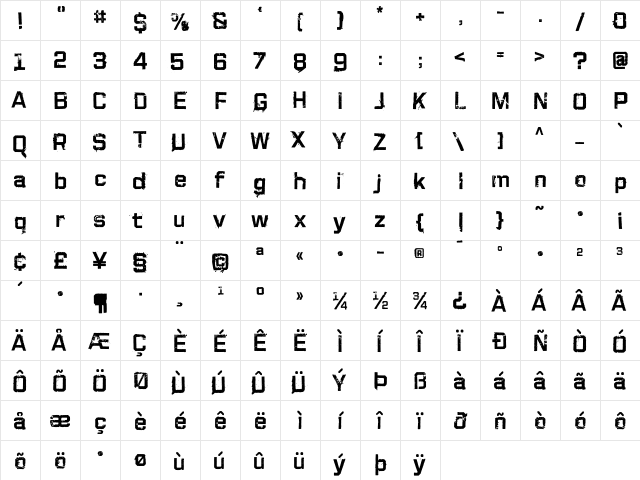
HouseMovements-Soiled Regular
| Designer | House Industries |
Design Context for HouseMovements-Soiled Typeface
HouseMovements-Soiled is a composed and adaptable typeface that performs quietly and consistently across a wide range of design contexts.